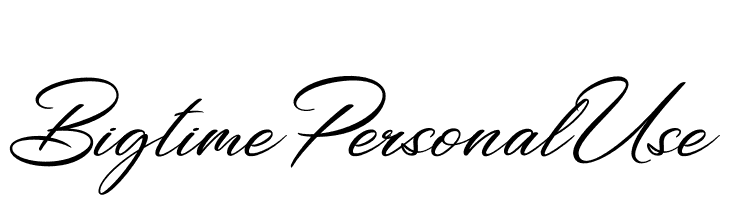
A flowing, cursive font with elegant loops and swirls.
An elegant script font with flowing, interconnected letters and classic calligraphic style.
A graceful and elegant script font with fluid, interconnected strokes.
A bold, cursive font with interconnected, flowing characters.